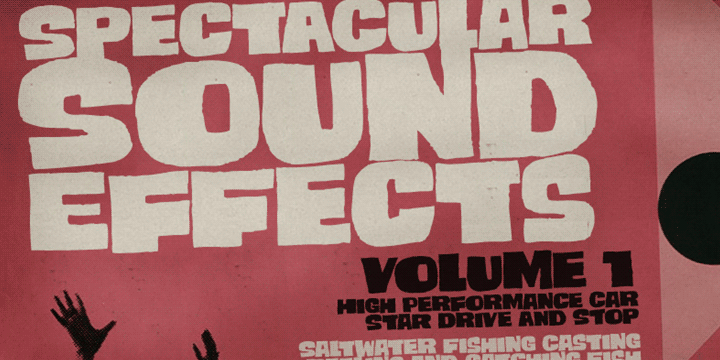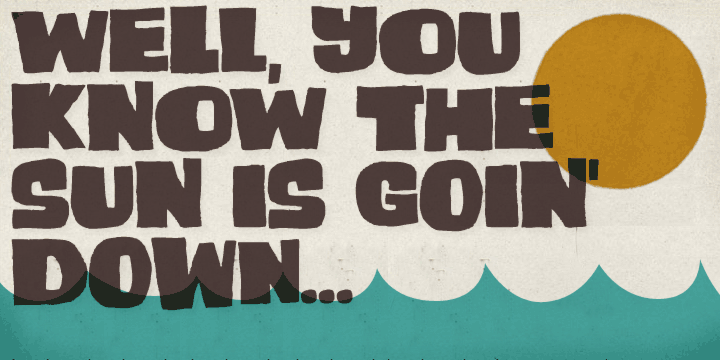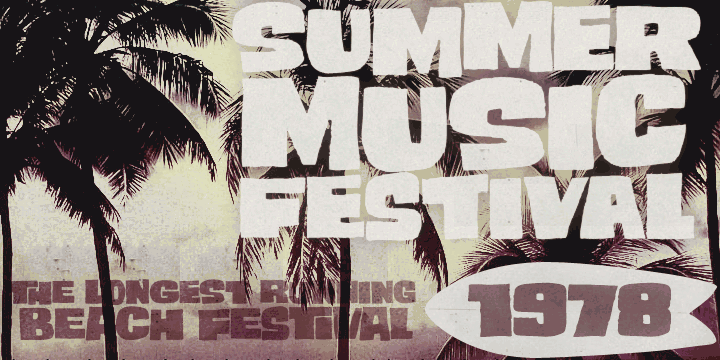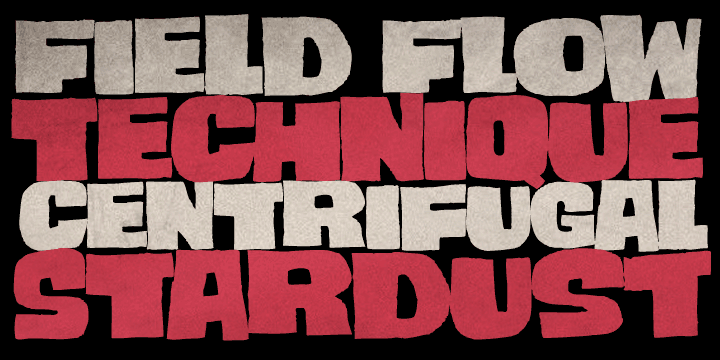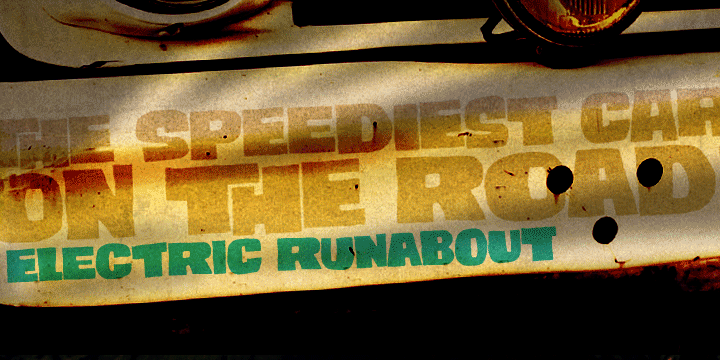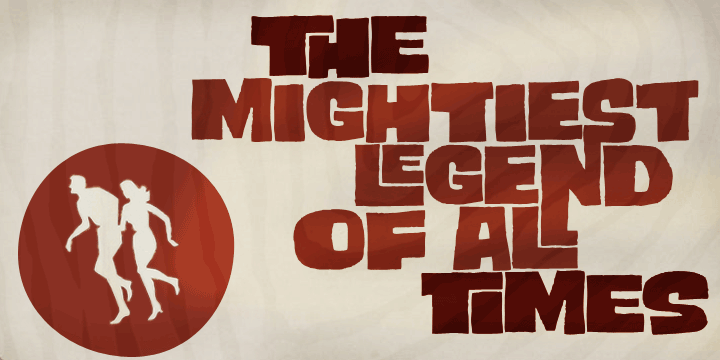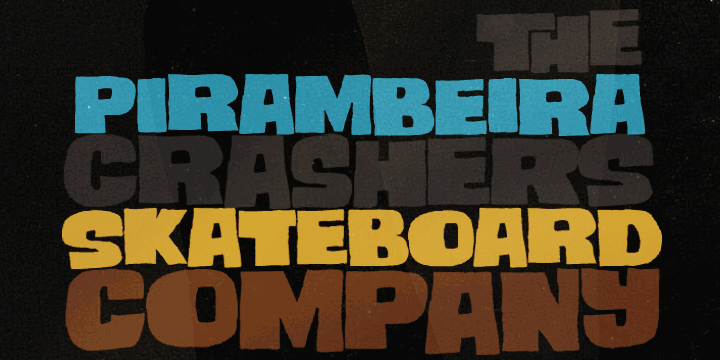
About Smashing Font Family Smashing is a stout typeface, with a twist. It’s a massive all-caps font with bouncing glyphs, positively bold yet quite good-humored. Its upper and lower case slots stores different lettershapes, providing handy options to choose from. When working with OpenType savvy applications you can turn on the contextual alternates feature to instantly get alternating glyphs,
which add spontaneity to your artwork and prevent neighbor double letters from using the same glyph. Also try the discretionary ligatures feature to get some cool interlocking pairs.A smashing font for truly smashing designs! Designers: Erica Jung, Ricardo MarcinPublisher: PintassilgoPrintsFoundry: PintassilgoPrintsDesign Owner: PintassilgoPrintsMyFonts debut: Jun 3, 2011 Smashing